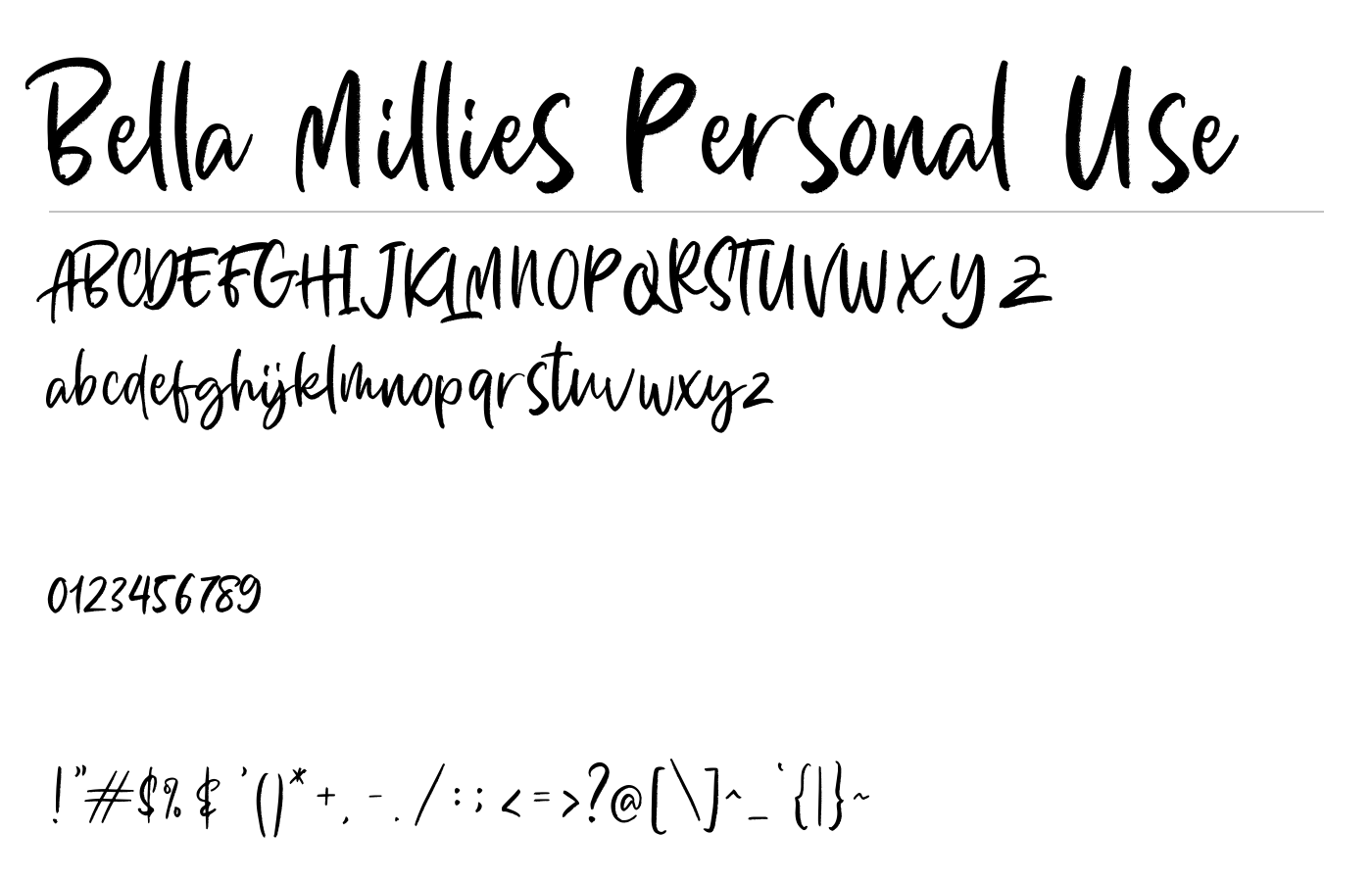
Bella Millies Personal Use is a lively, handwritten script font with a casual and playful feel. Its varying stroke widths and slightly irregular shapes give it an organic, natural look, making it perfect for creative projects seeking a friendly and approachable vibe. This font works well for invitations, branding, and social media designs where a personal touch is desired.
Bella Millies Personal Use Font
About Bella Millies Personal Use Font
| Font family | Bella Millies Personal Use Font |